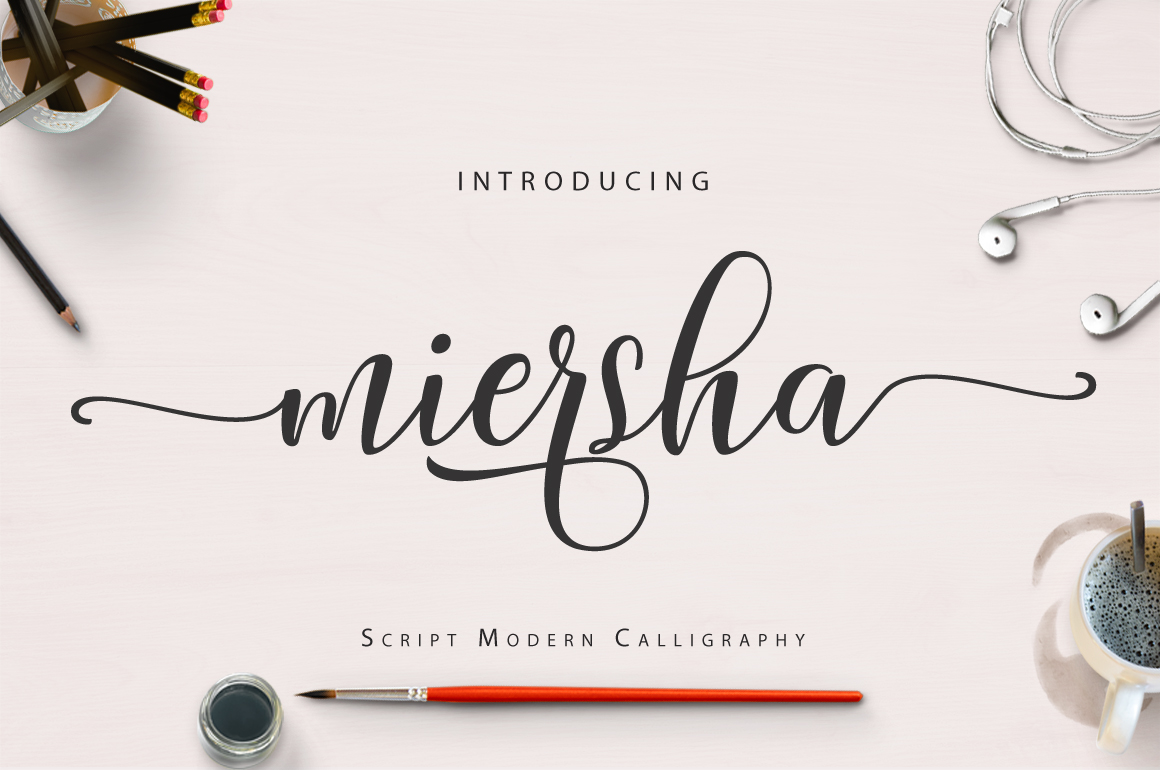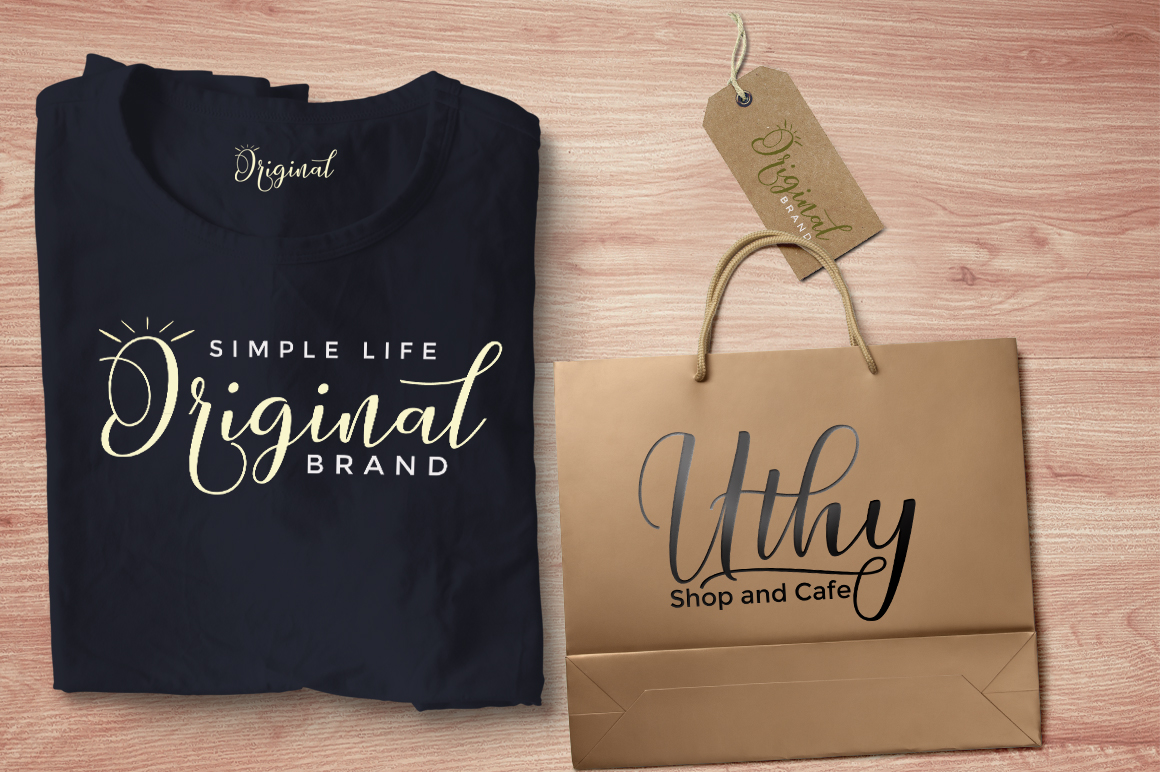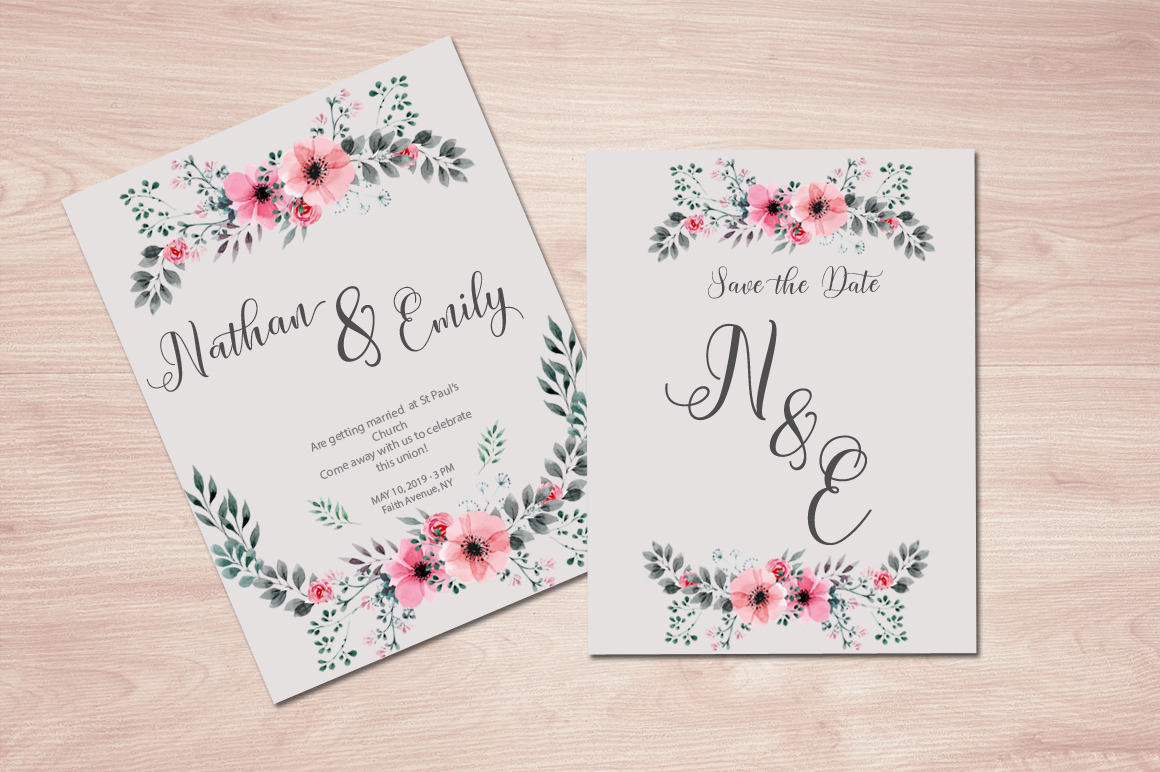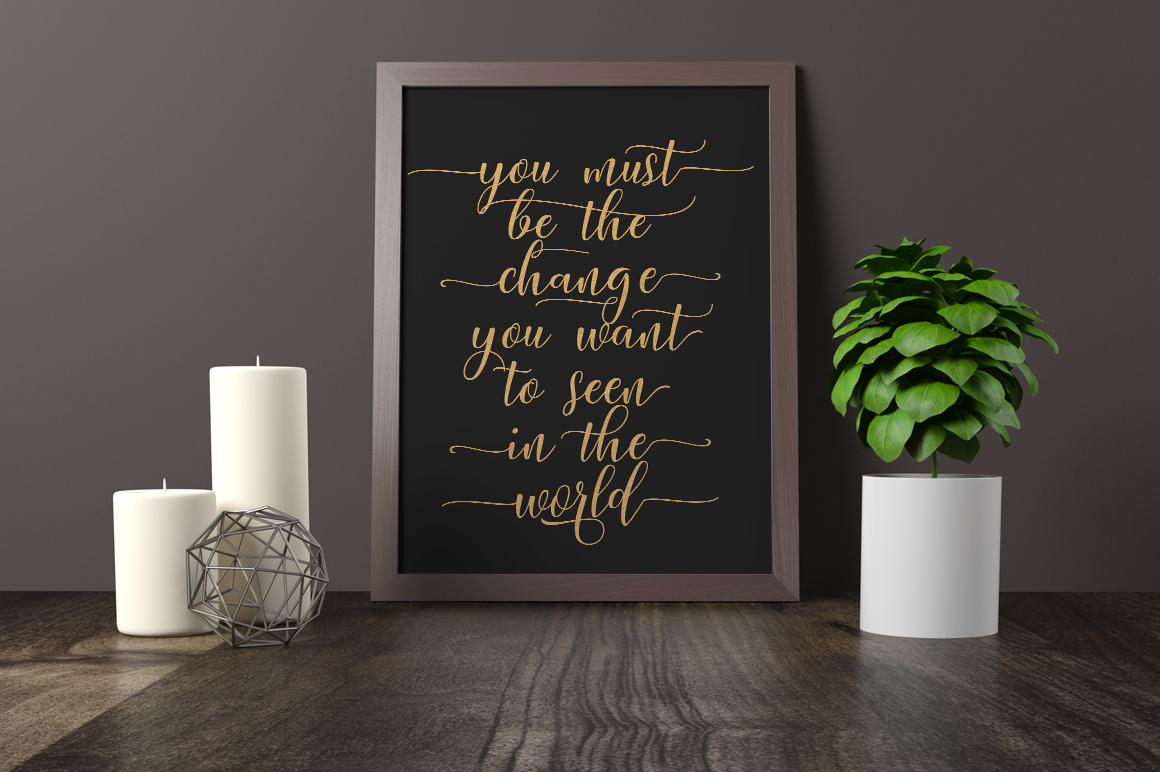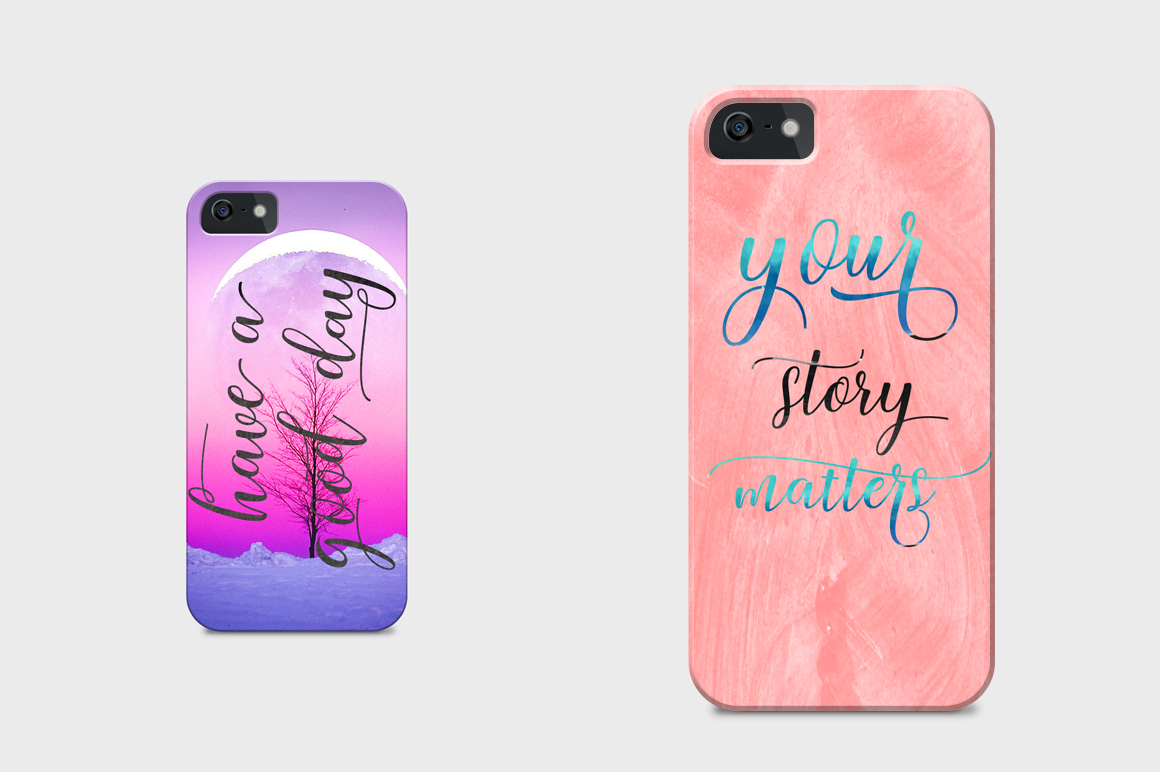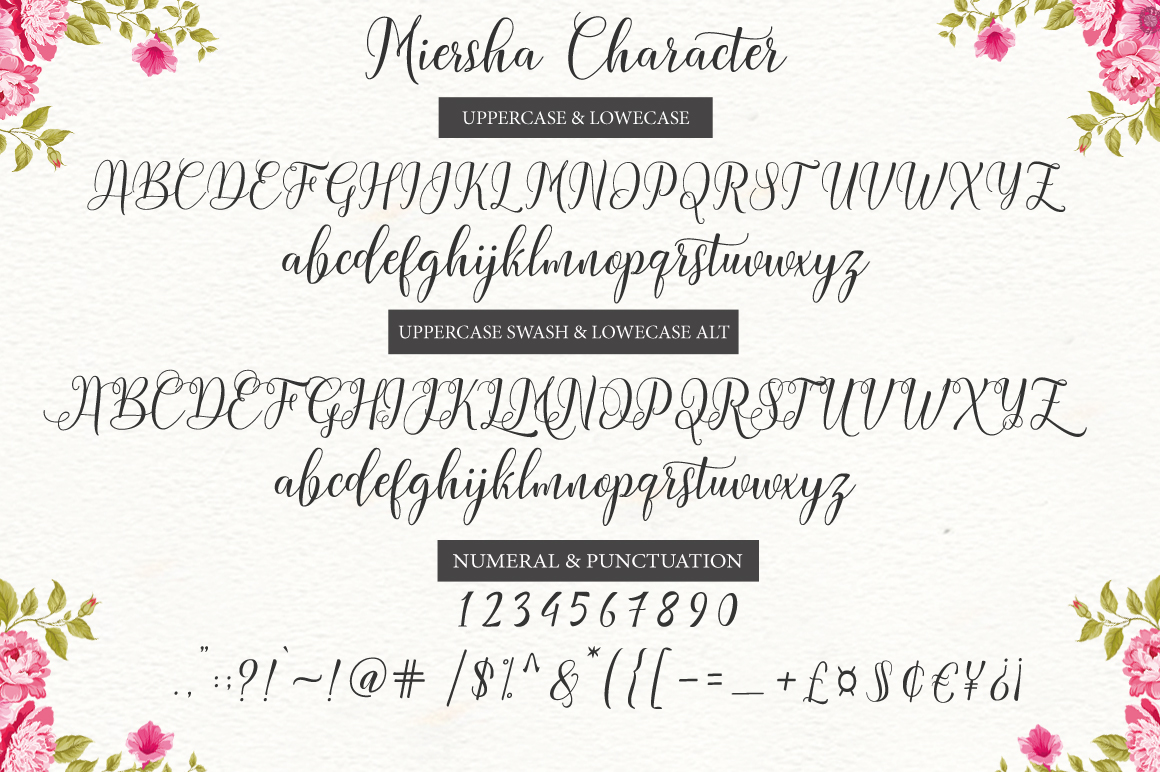
Miersha Font
About Miersha Font
Miersha is a gorgeous and modern font with tons of style! This script can be used for a large range of uses; this swashy and stunning script font is a great way to give your designs unparalleled elegance.